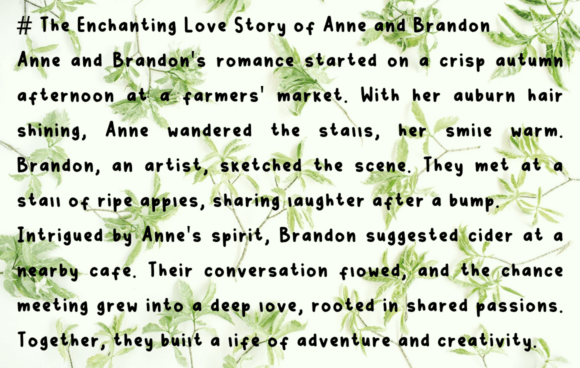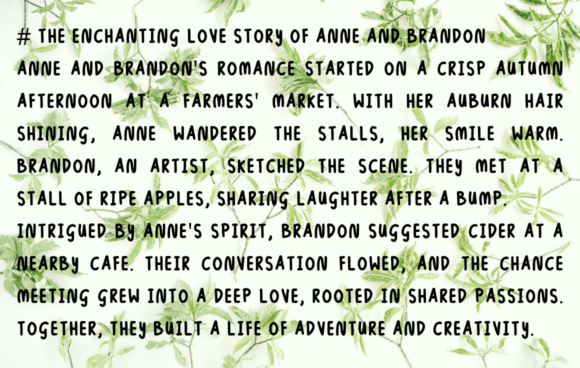
Introduction to Rounded Bold Handwriting Font
As I sat at my desk, surrounded by scraps of paper and scattered design ideas, I knew exactly what my project needed: a font that exuded warmth and personality. I was on the hunt for a typeface that would add a touch of soul to my creative project, and that’s when I stumbled upon the Rounded Bold Handwriting Font. Its thick, rounded strokes and bold presence immediately caught my attention, and I knew I had found the perfect design resource.
For designers, having access to high-quality fonts like the Rounded Bold Handwriting Font can be a game-changer. Not only does it offer a unique, artisanal touch, but its excellent legibility ensures that your message stands out. Whether you’re designing for a nursery, creating festive stationery, or building a playful brand identity, this font is a valuable addition to your design arsenal.
Key Features of Rounded Bold Handwriting Font
- Unique Handwritten Style: This font features a bold, rounded handwriting style that adds a touch of personality to any creative project.
- High-Quality Design: The font is designed with high-quality in mind, ensuring that it looks great on a variety of backgrounds, including transparent backgrounds.
- Large Character Set: The font includes a large character set, including uppercase and lowercase letters, numbers, and punctuation marks, making it suitable for a wide range of creative projects.
Honest Review: Rounded Bold Handwriting Font
I recently had the chance to experiment with the Rounded Bold Handwriting Font, and I must say it’s a high-quality addition to any creative project. The free download was a pleasant surprise, making it an excellent design resource for those on a budget.
What works well with this font is its versatility. ✨ It’s perfect for creating eye-catching titles, headings, and even quotes with a transparent background. The rounded edges give it a friendly and approachable feel, making it ideal for branding and advertising materials.
Here are some of the features that stood out to me:
- High-quality vector graphics
- Perfect for creating titles and headings
- Can be used with a transparent background
- Excellent design resource for creatives
However, I did encounter a few limitations. ⚠️ The font is not suitable for small text sizes, and it can be challenging to read in certain contexts. Additionally, it may not be the best choice for formal or professional projects.
Overall, I’m impressed with the Rounded Bold Handwriting Font, and I would definitely recommend it for creative projects that require a touch of personality and flair. With its high-quality design and free download, it’s a great resource to have in your toolkit.
Rounded Bold Handwriting Font
Tips for Getting the Most Out of Rounded Bold Handwriting Font
To get the most out of Rounded Bold Handwriting Font, use it with a transparent background to create a seamless design. Experiment with different font sizes, colors, and combinations to add visual interest to your design. You can also use it in conjunction with other design resources, such as graphics and images, to create a unique and eye-catching design.
Rounded Bold Handwriting Font is a versatile design resource that can be used in a variety of creative projects, including:
Q: What is the recommended size for using the Rounded Bold Handwriting Font in a design project?
The recommended size for using the Rounded Bold Handwriting Font in a design project will depend on the specific requirements of your project. However, as a general rule of thumb, we recommend using the font at a size of at least 24 points for optimal readability. This will ensure that your text is clear and easy to read, even in a high-resolution design.